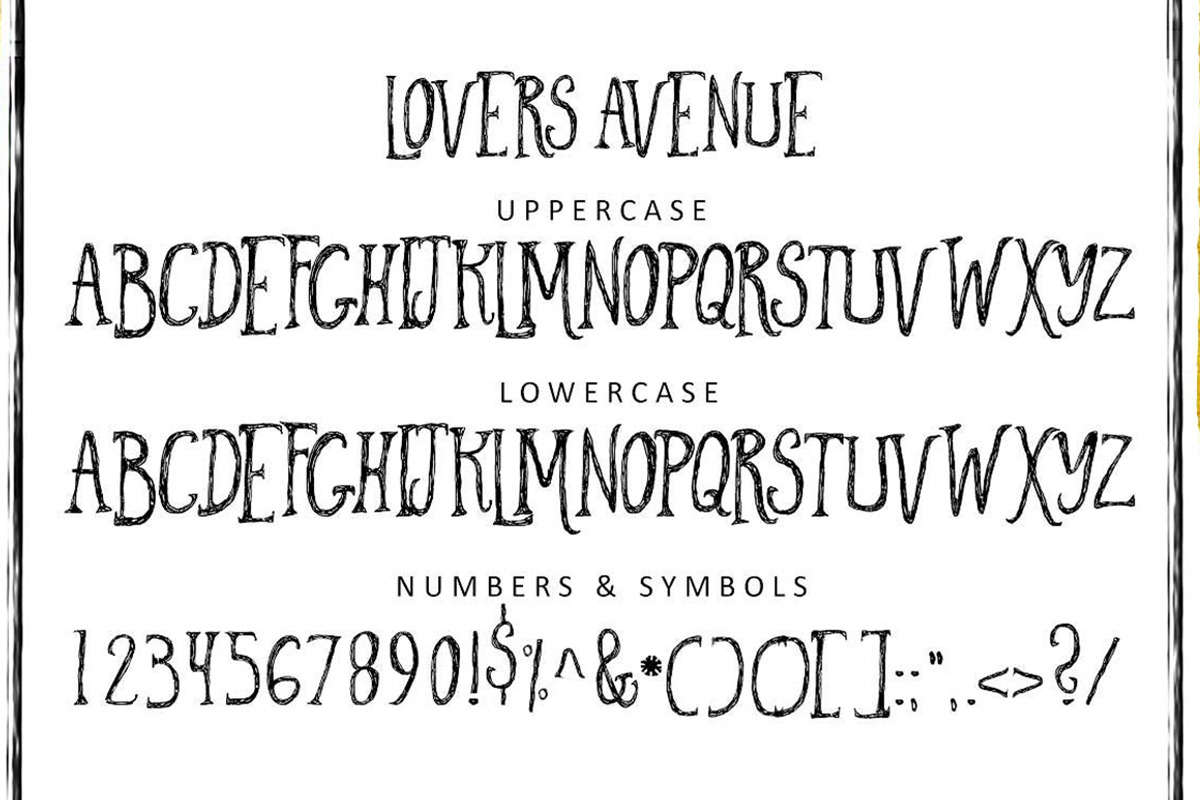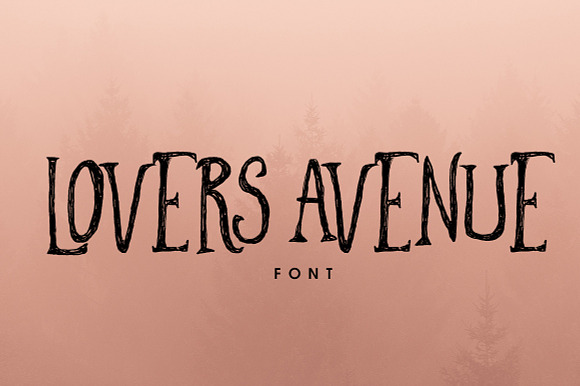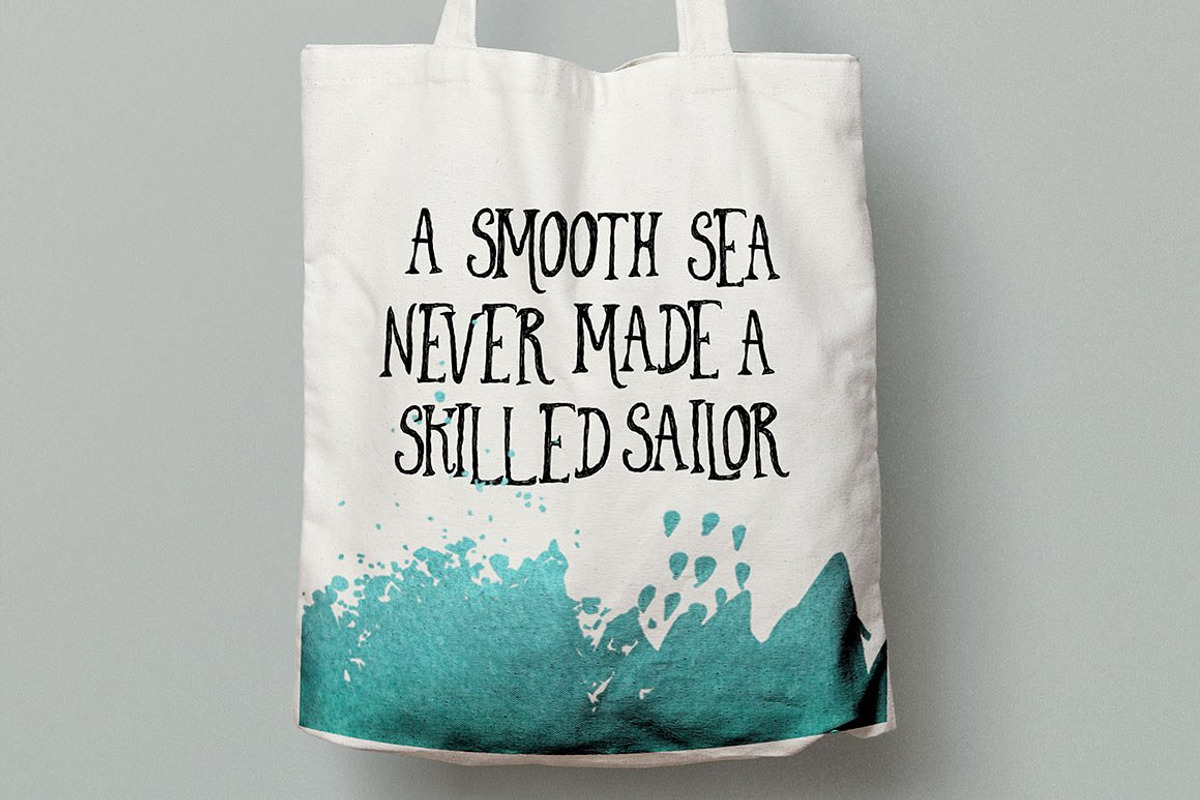
Lovers Avenue Font
This is Lovers Avenue. A cool hand drawn all caps display font. This font is part of the Big Bunch of Fonts Volume 2 here
Why Lovers Avenue Font is worth a look
Lovers Avenue Font by Creativeqube Design fits naturally into Branding, posters, packaging, typography.